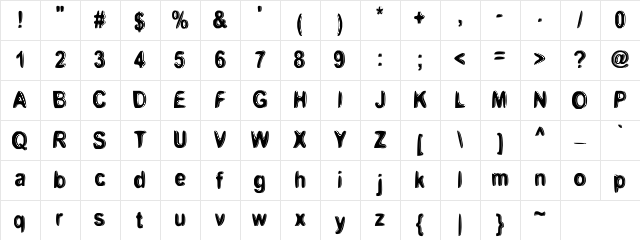
Complete boomerang monkey deluxe. normal glyph index. Displaying only characters natively supported by boomerang monkey deluxe. normal font.
boomerang monkey deluxe. is a composed and adaptable typeface that performs quietly and consistently across a wide range of design contexts.